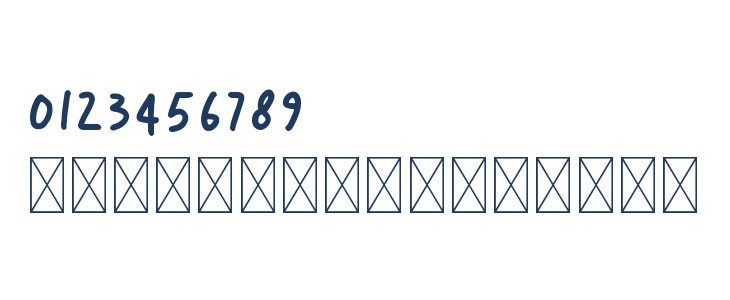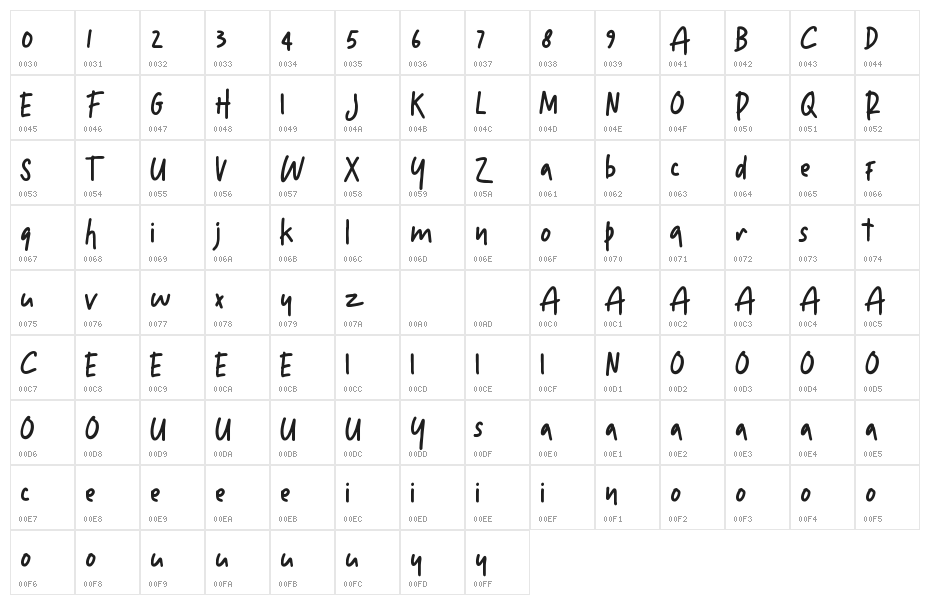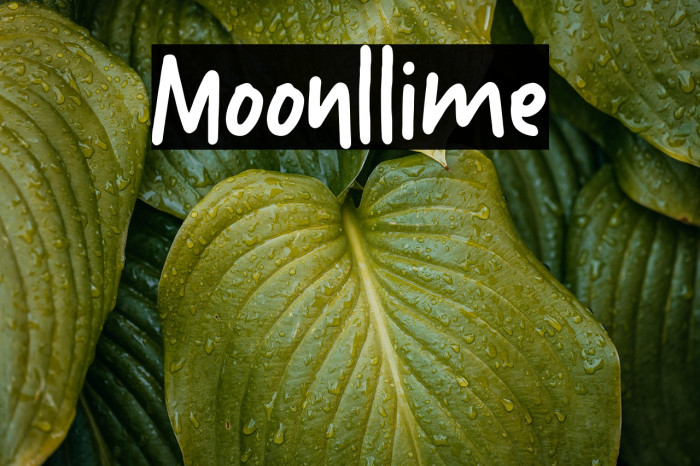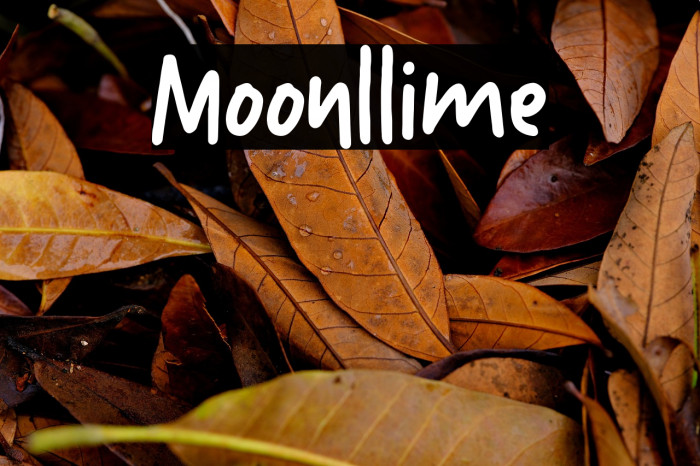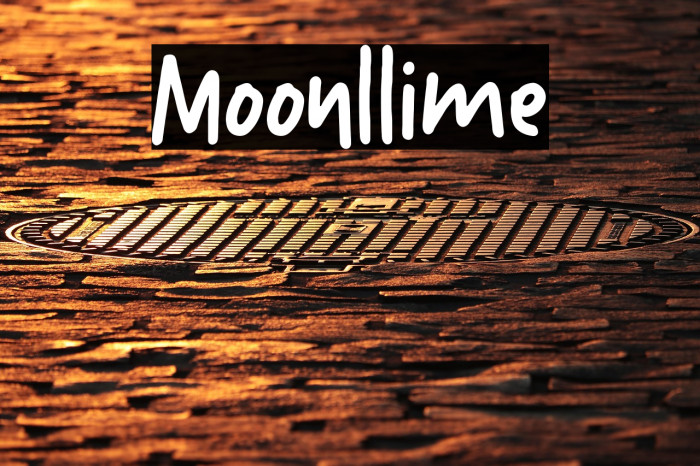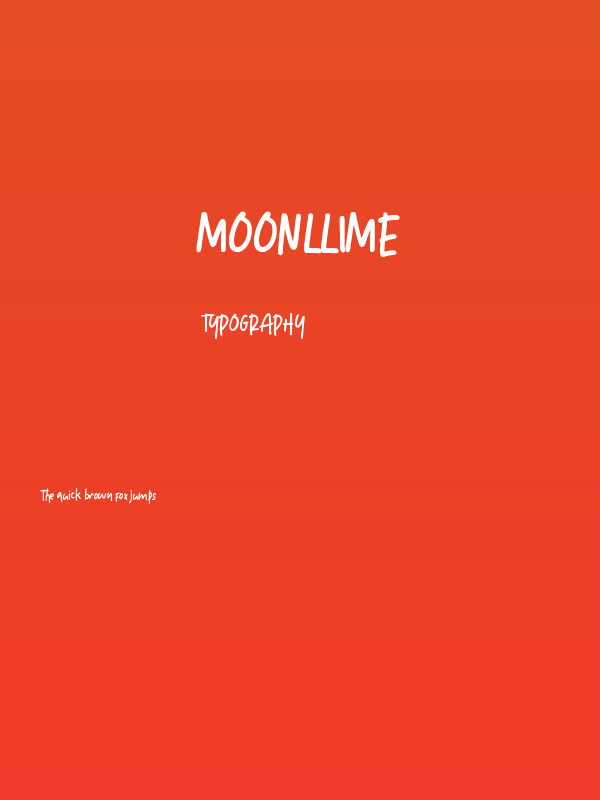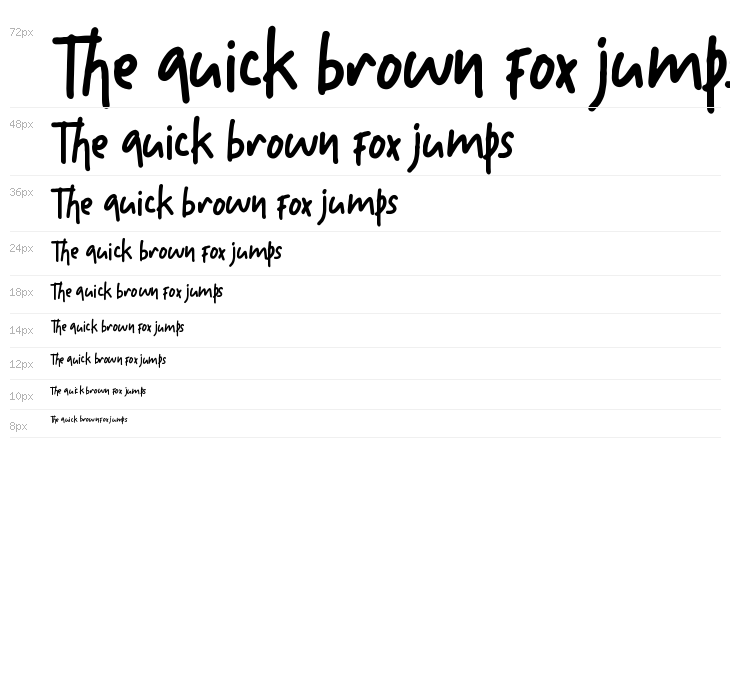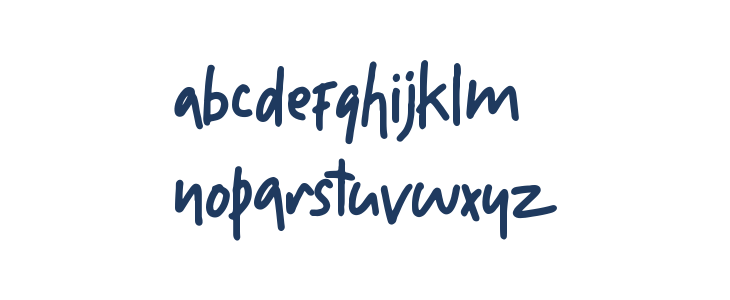
Moonllime Font
Moonllime Description
This font exudes a playful and casual handwritten style, characterized by its bold and slightly uneven strokes that mimic the natural flow of handwriting. The letters are rounded with a slight slant, giving it a dynamic and energetic feel. The uppercase and lowercase letters maintain a consistent style, while the numbers and special characters blend seamlessly with the overall design. This font is perfect for projects that require a personal touch, such as greeting cards, invitations, or social media graphics. Its informal and approachable appearance makes it ideal for conveying warmth and friendliness.